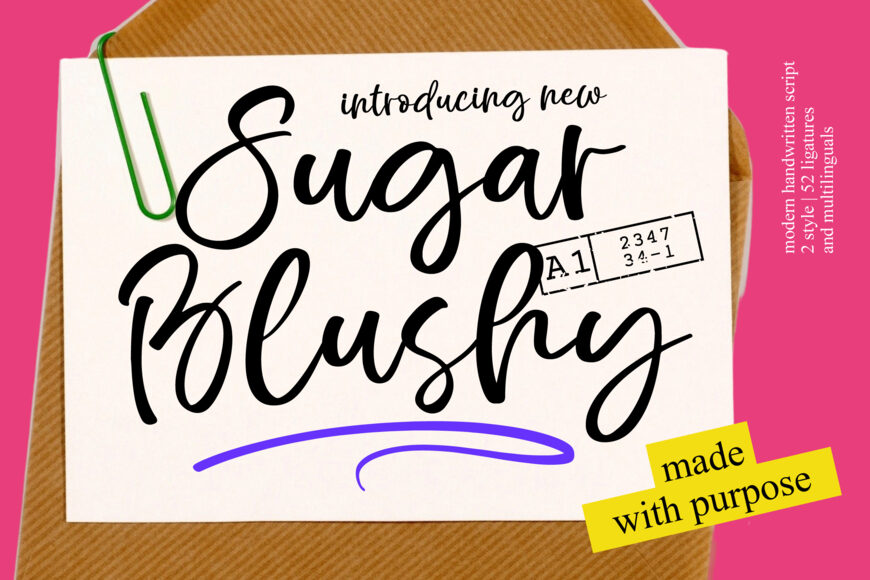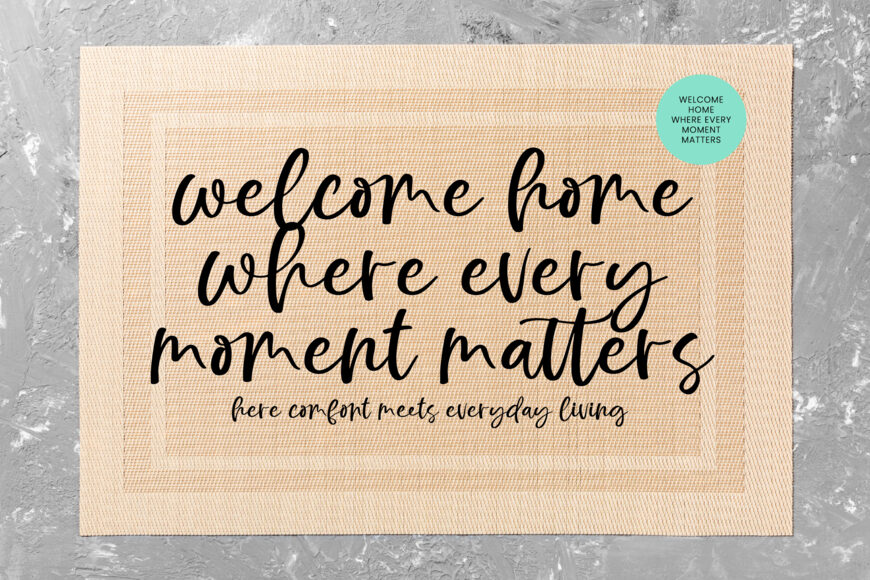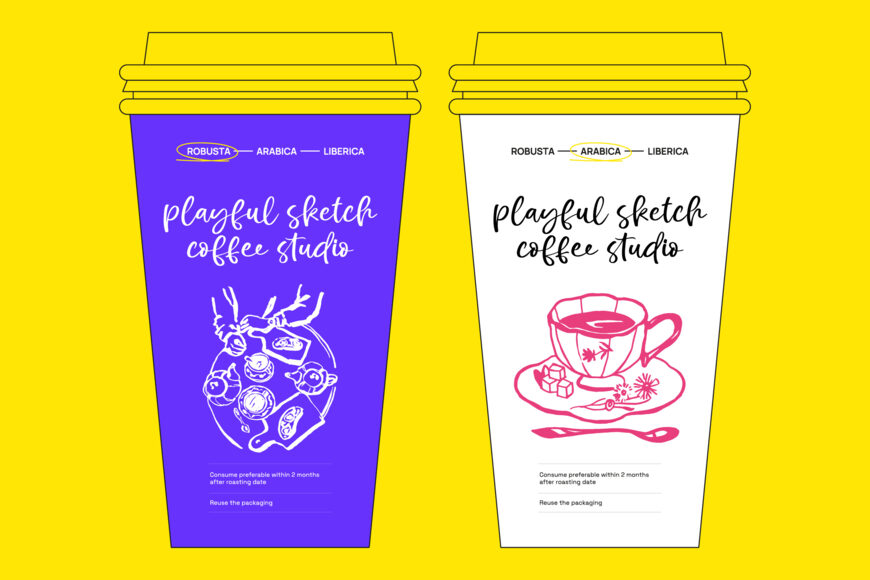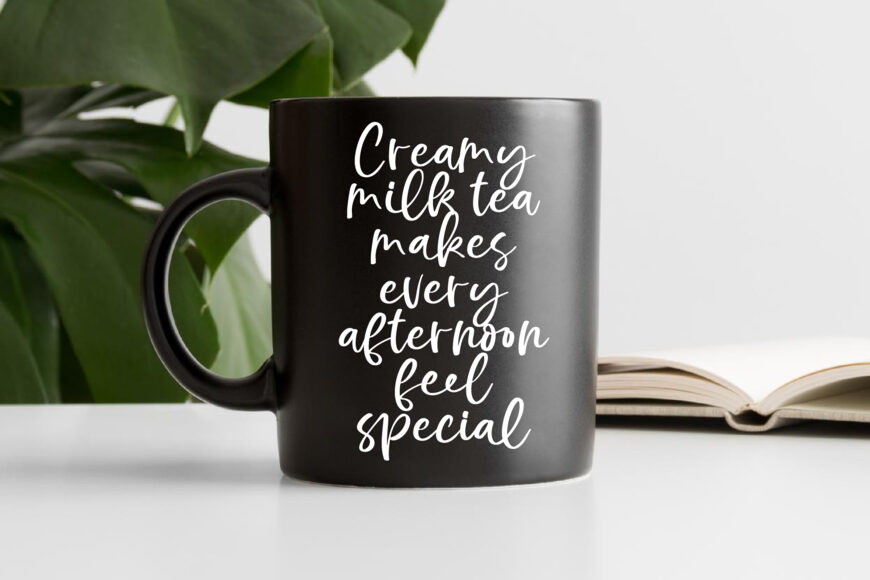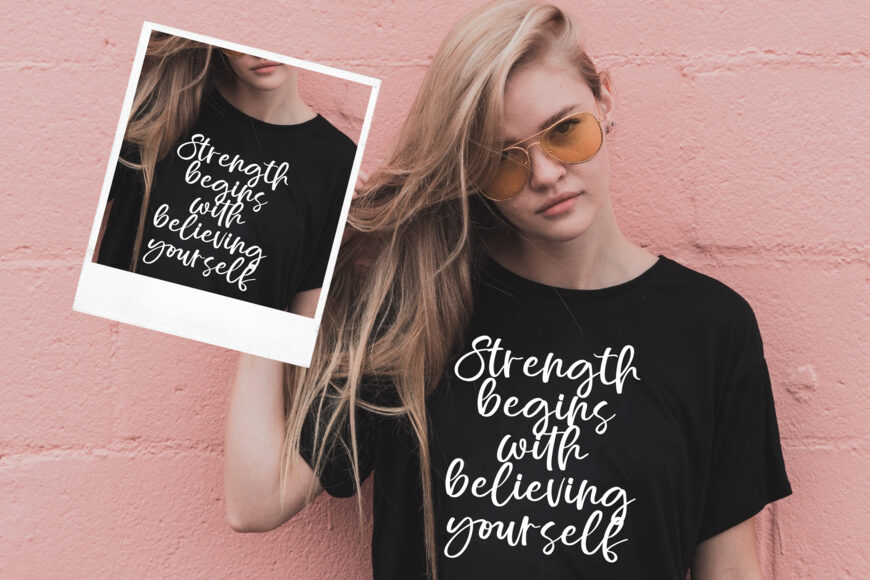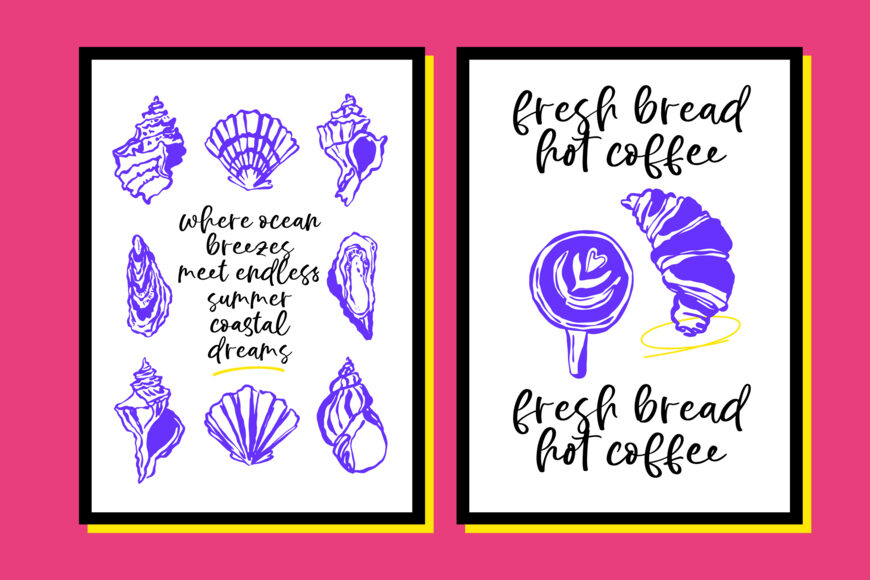
Sugar Blushy is a modern handwritten script that combines elegant calligraphy with an authentic, organic feel. Its smooth strokes and lively letterforms add warmth, sophistication, and a personal touch while maintaining clear readability.
With more than 50 ligatures, it recreates natural handwritten connections, while multilingual support makes it suitable for international branding. Ideal for luxury identities, premium packaging, editorial layouts, wedding invitations, social media content, and logo design, its high-contrast strokes work beautifully in both headlines and smaller text.